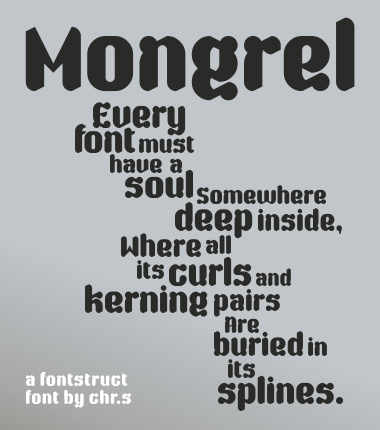
Mongrel
by chr.s
I was a little bit bored, and this is what happened. The name is because I have no idea what the origin is, and it's a little ugly.
this is great. so simple, yet it has a wonderful brush stroke feel. swirls can easily be imagined where you place circle bricks. although it could be used as text, the joy here is viewing this at a larger size and marveling at the artistry and craftsmanship. very nice.
Some cracking letters. Really love the S,g,k. Not sure bout the G's leg though.
Very cool. It has almost an Art Nouveau Faux Oriental look to it.
I also like this design. Can you add numbers to this font?
I've altered the G, added numbers and tweaked a few other letters to make averything a little more cohesive.
Following Penkala, this is another nice font with some smart solutions. Your glyphs look so effortless and natural. It would deserve a decent demo pic. 10/10
Perhaps half decent.
Each new time I look at this font I like her more. Perhaps some glyphs might be a little more stylized, but the set works very well together at short distances. Are you planning to add other, more to the font (@, #,%, &, ",, N, C, accented vowels, etc.)? It would be very rewarding, please.
This is really good. My faves are the e, g, and y.
Very nice one, Bravo
love that g
The work of Underware foundry come to my mind when I see Mongrel
Excellent.
My only (teeny) quibble is with the sharp angles on the M and W ... they stand out against the other more sinuous glyphs. Still gets a 10 though :)
Any chance of some more European characters on this one i.e. öäüÖÄÜß etc. ?
Congratulations on Mongrel becoming the Featured Font :)
I guess I'd better get cracking on those other European characters then!
Some of the extra characters are likely to prove problematic - due to the small grid and 'odd' width of the letters - but I'll do my best. For example, the current @ symbol is already a little over the top, but all I could manage given the constraints of the grid.
To answer your quandary p2pnut, I tried a few alternatives to the M and W; dispite them being a little in more in keeping with the other characters, none of them were quite as satisfying to read as these, so I opted to compromise in favour of legibility.
Congrats on the featured fontstruction. The quirkiness makes it look like it shouldn't work, but the sample really sells it.
I'm flabbergasted. This is superb. I don't care what its balanced rating is, it's an eleven to me.
Every time I see your font, so excellently built, I get why I should continue doing in FS, things that I call "fonts". Jokes aside, excellent work, it's great to have great teachers like you here.
That'S Brill .. VerY , VerY GooD...
wow...!
i didn't know you can make something great like this with fontstruct.
really awesome!!!!!